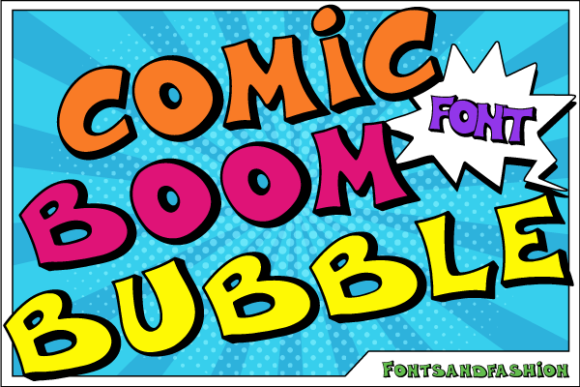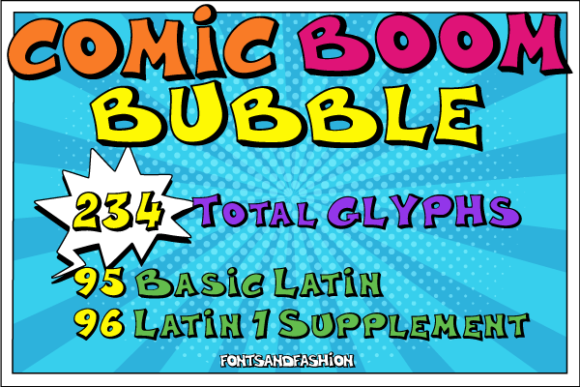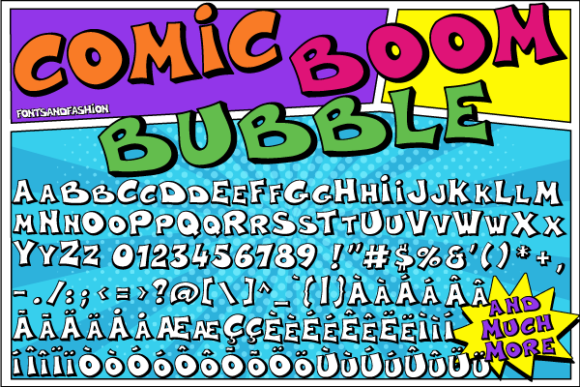
Introducing Comic Boom Bubble Font: The Ultimate Display Font for DIY Enthusiasts
Are you tired of using the same old fonts for your DIY projects? Do you want to add a touch of fun and personality to your designs? Look no further than Comic Boom Bubble Font! This bold and fun display font is carefully handcrafted to become a true favorite among designers and crafters. In this article, we’ll dive into the features and benefits of Comic Boom Bubble Font and explore how it can bring any DIY project to life.
What is Comic Boom Bubble Font?
Comic Boom Bubble Font is a unique and gorgeous display font that is perfect for adding a playful touch to any design. Its bold and fun style is reminiscent of classic comic books and bubble letters, making it a great choice for projects that require a bit of whimsy and personality. Whether you’re working on a DIY craft project, a graphic design project, or even a digital project, Comic Boom Bubble Font is sure to make a statement.
Features of Comic Boom Bubble Font
- Bold and Fun Style: Comic Boom Bubble Font features a bold and fun style that is perfect for making a statement.
- Handcrafted with Love: This font is carefully handcrafted to ensure that every detail is perfect, making it a true favorite among designers and crafters.
- Unique and Gorgeous: Comic Boom Bubble Font is a one-of-a-kind font that is sure to add a touch of personality to any design.
- Perfect for DIY Projects: This font is ideal for DIY enthusiasts who want to add a professional touch to their projects without sacrificing personality.
Benefits of Using Comic Boom Bubble Font
So why should you choose Comic Boom Bubble Font for your next DIY project? Here are just a few benefits of using this amazing font:
- Adds Personality to Your Design: Comic Boom Bubble Font adds a touch of fun and personality to any design, making it perfect for projects that require a bit of whimsy.
- Easy to Read: Despite its bold and playful style, Comic Boom Bubble Font is easy to read, making it perfect for use in a variety of projects.
- Versatile: This font can be used in a variety of projects, from DIY crafts to graphic design projects and digital projects.
- High-Quality: Comic Boom Bubble Font is a high-quality font that is carefully crafted to ensure that every detail is perfect.
How to Use Comic Boom Bubble Font
Using Comic Boom Bubble Font is easy! Here are a few tips for incorporating this amazing font into your next DIY project:
- Pair it with Other Fonts: Comic Boom Bubble Font pairs well with other fonts, making it easy to create a unique and visually appealing design.
- Use it for Headings: This font is perfect for use in headings and titles, where its bold and playful style can really make a statement.
- Experiment with Colors: Comic Boom Bubble Font looks great in a variety of colors, so don’t be afraid to experiment and find the perfect color for your project.
In conclusion, Comic Boom Bubble Font is a bold and fun display font that is perfect for DIY enthusiasts who want to add a touch of personality to their designs. With its unique and gorgeous style, this font is sure to become a true favorite among designers and crafters. Whether you’re working on a DIY craft project, a graphic design project, or even a digital project, Comic Boom Bubble Font is the perfect choice. So why wait? Download Comic Boom Bubble Font today and bring your next DIY project to life!